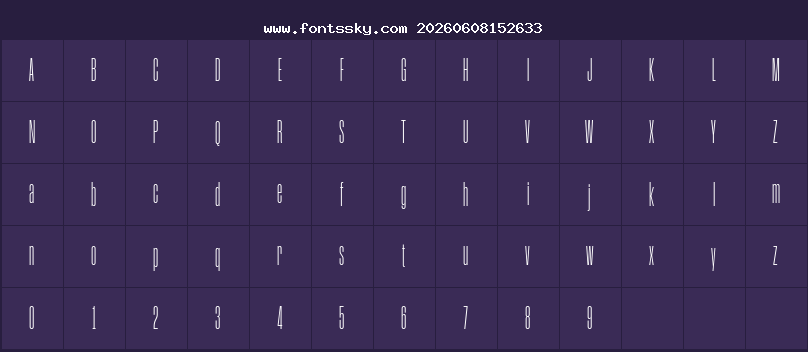
Humane ExtLt Preview
• Font Name: Humane ExtLt
• Full Font Name: Humane Extra Light
• PostScript Name: Humane-ExtraLight
• Designer: Rajesh Rajput
• Description: Humane V 2.0 is a Super Condensed Display typeface. Design and Distributed by Rajesh Rajput.
About Humane ExtLt.ttf
Humane ExtLt.ttf is a modern, elegant sans-serif font designed for ultimate readability and visual harmony. Perfect for branding, headlines, web design, and print materials.